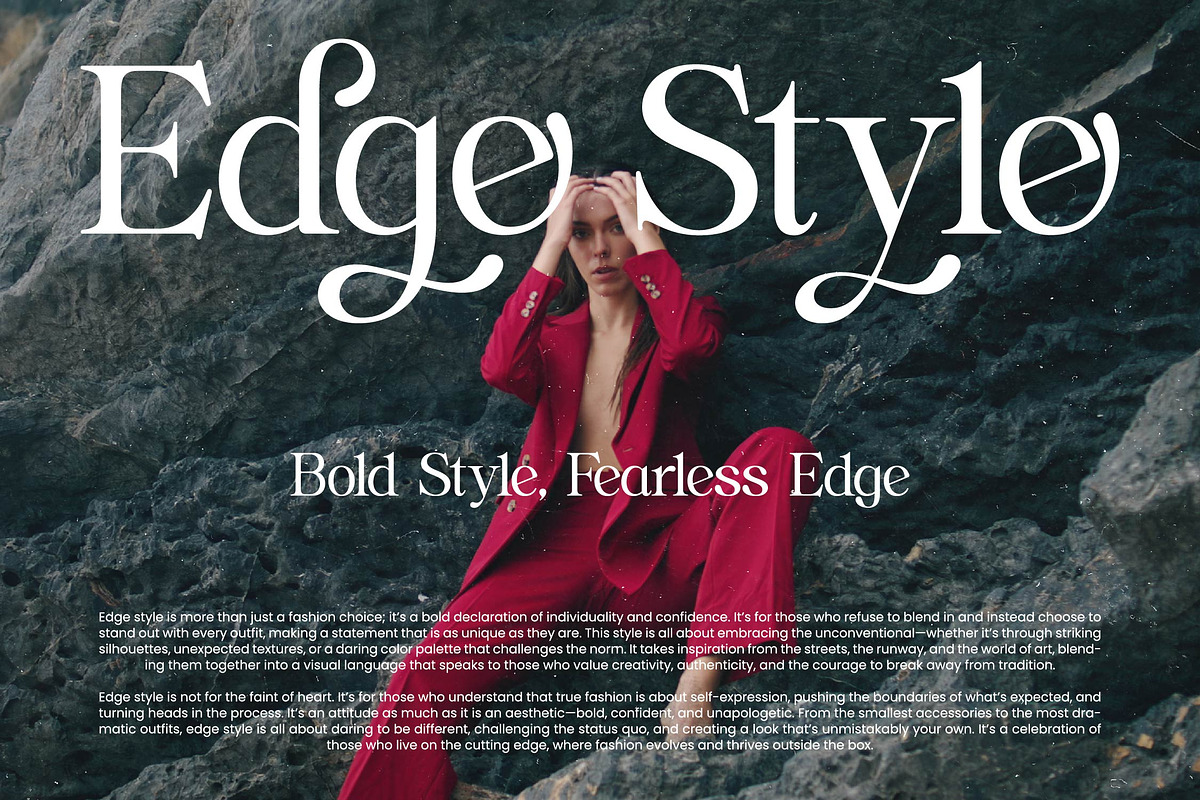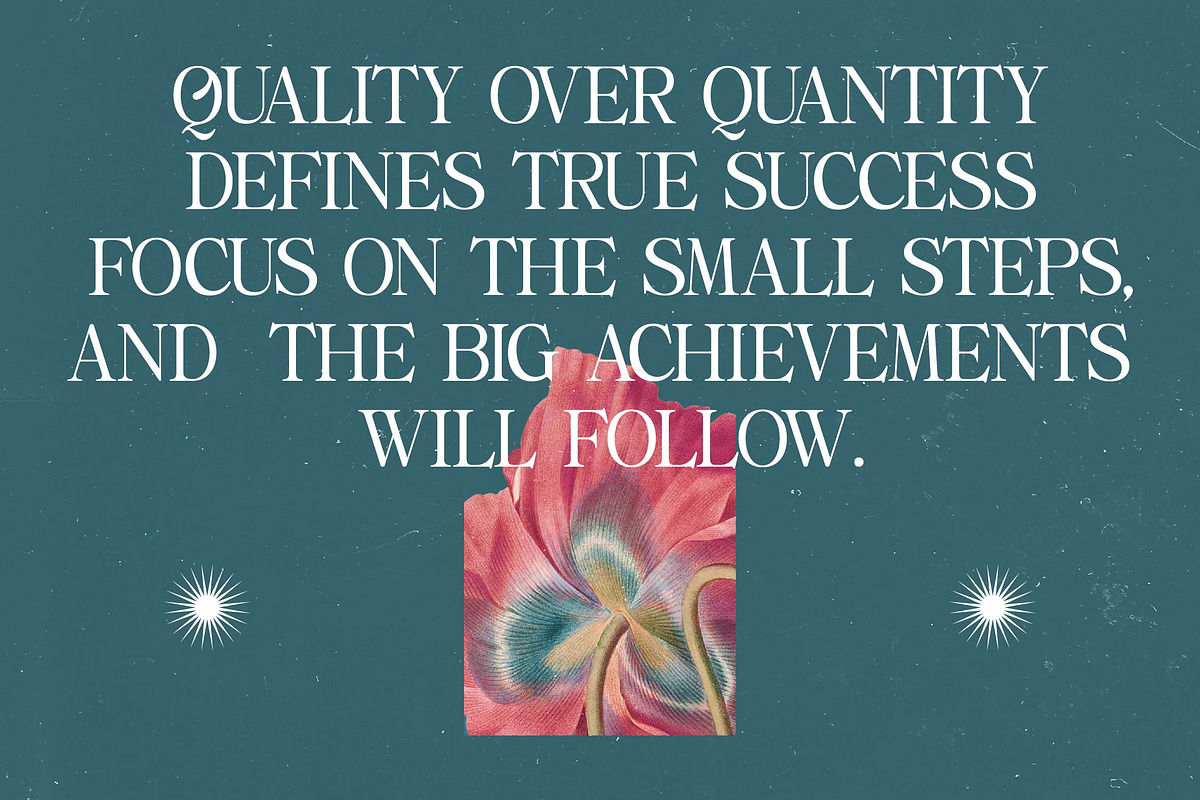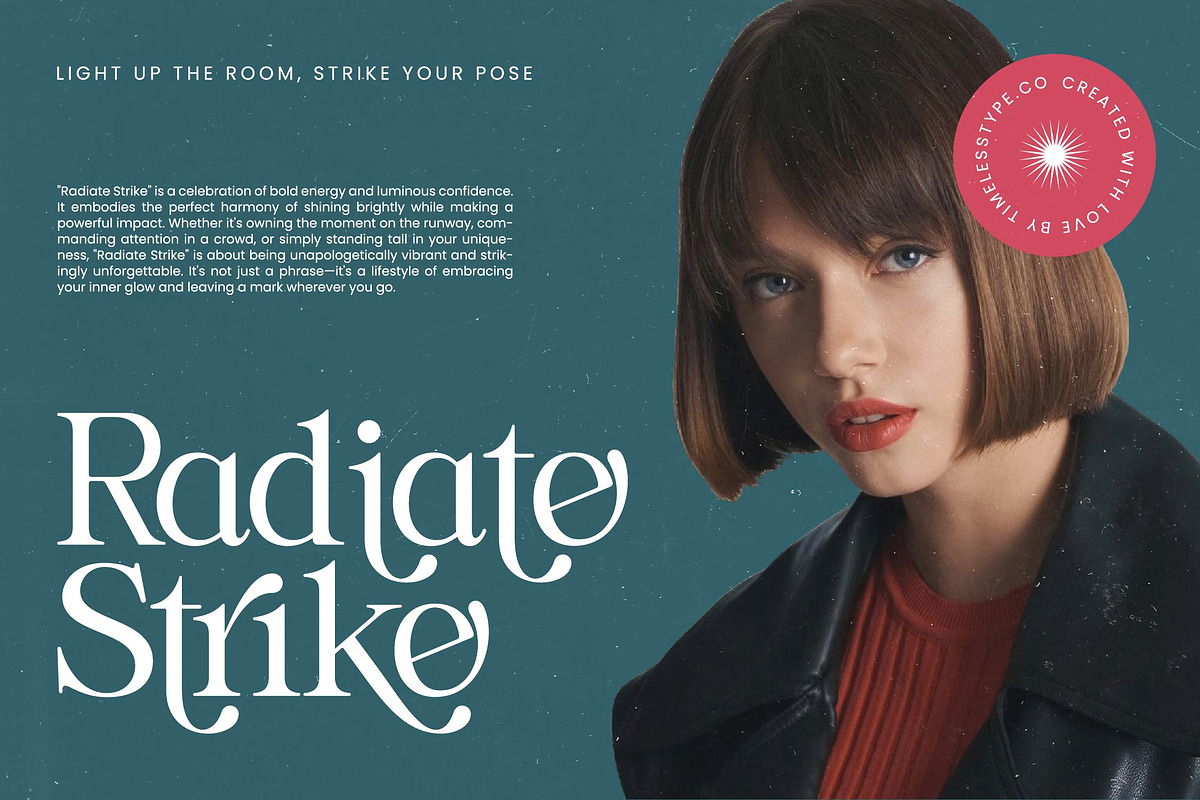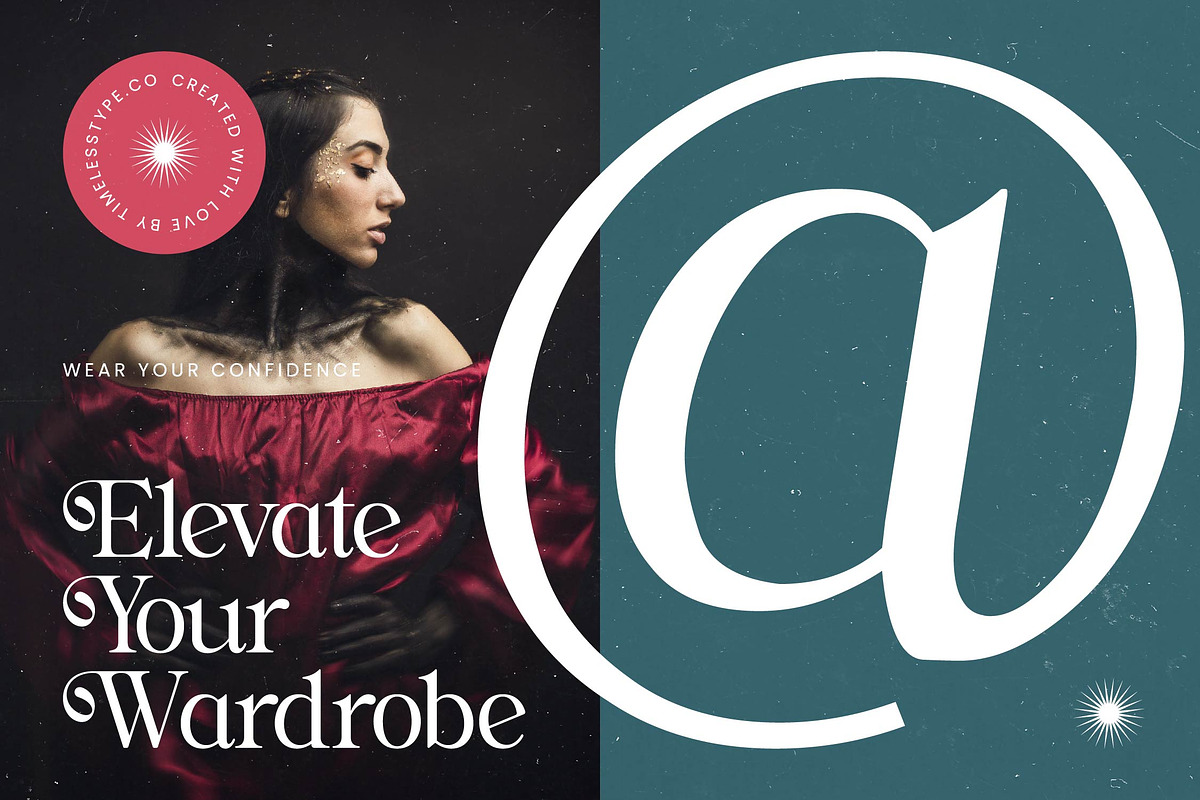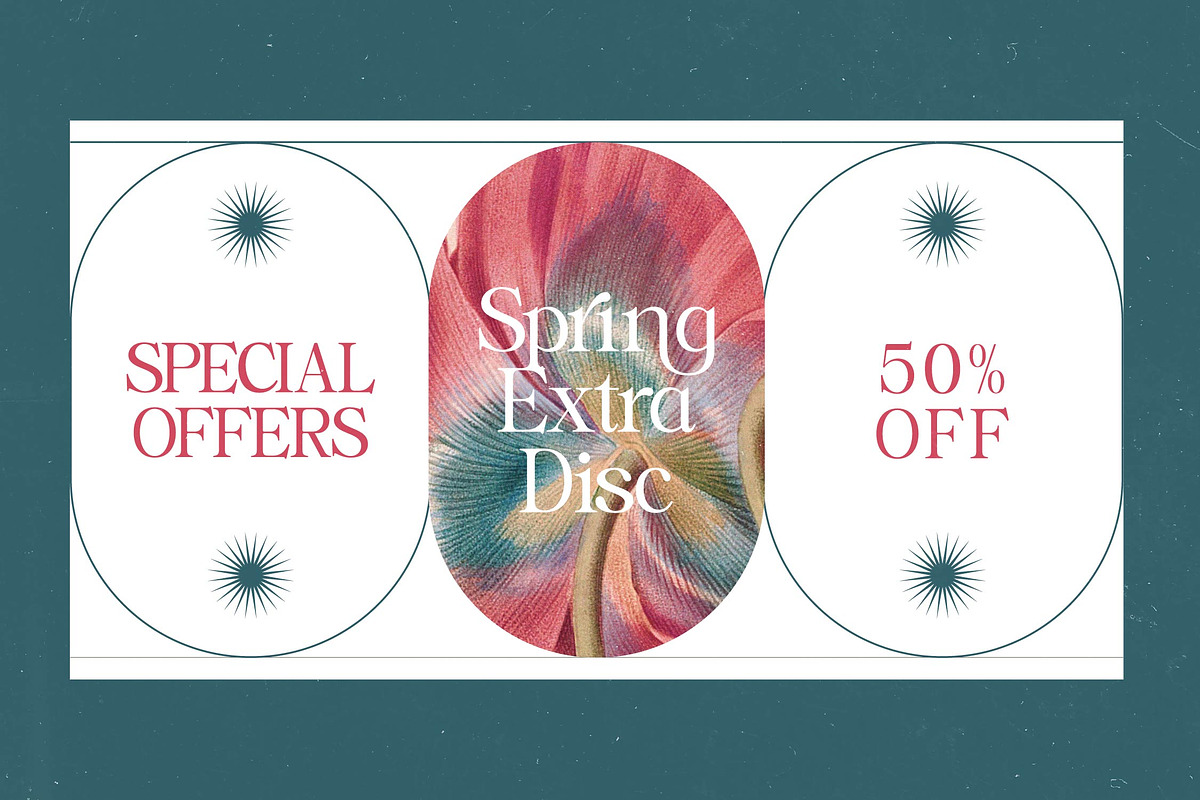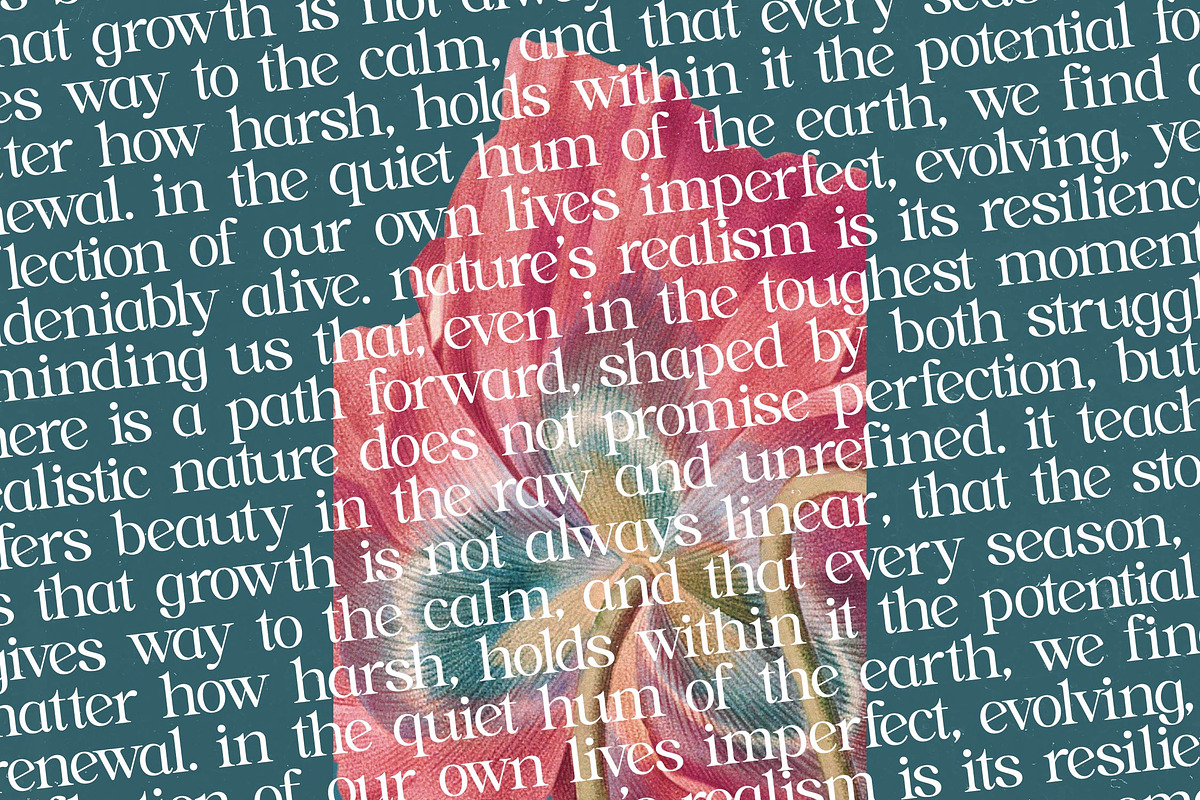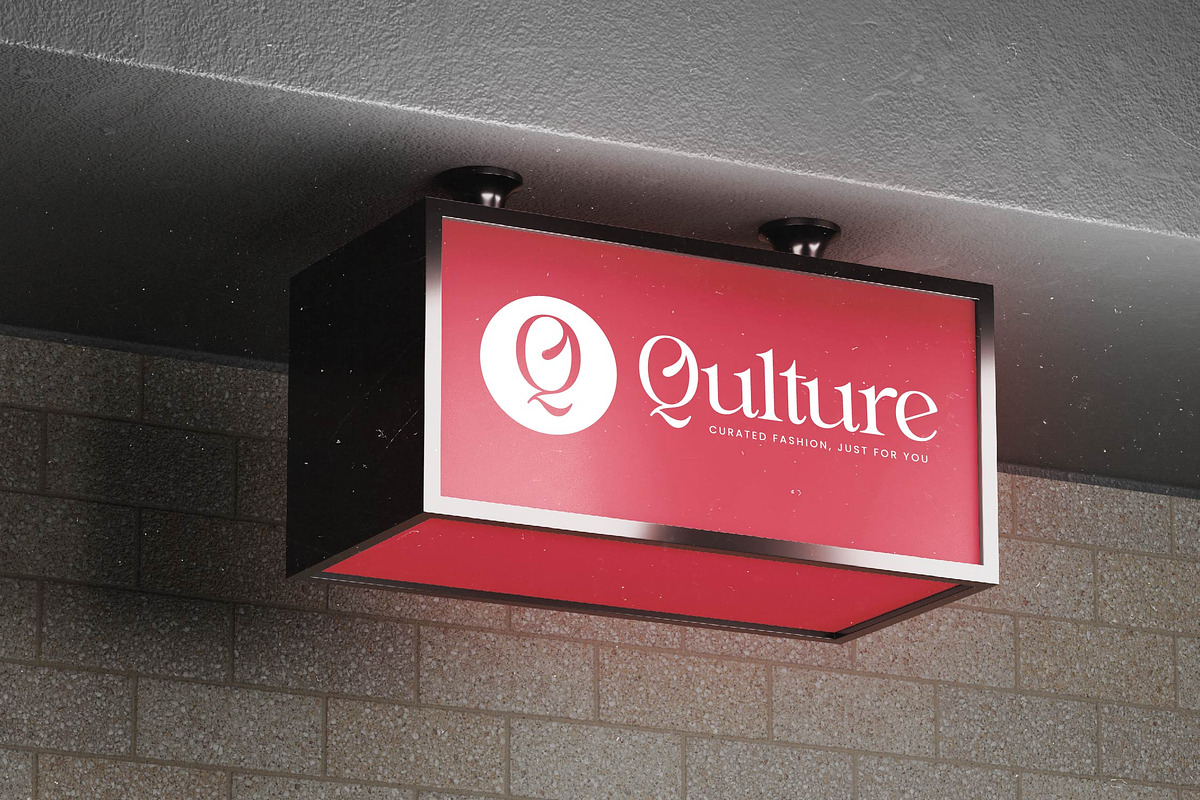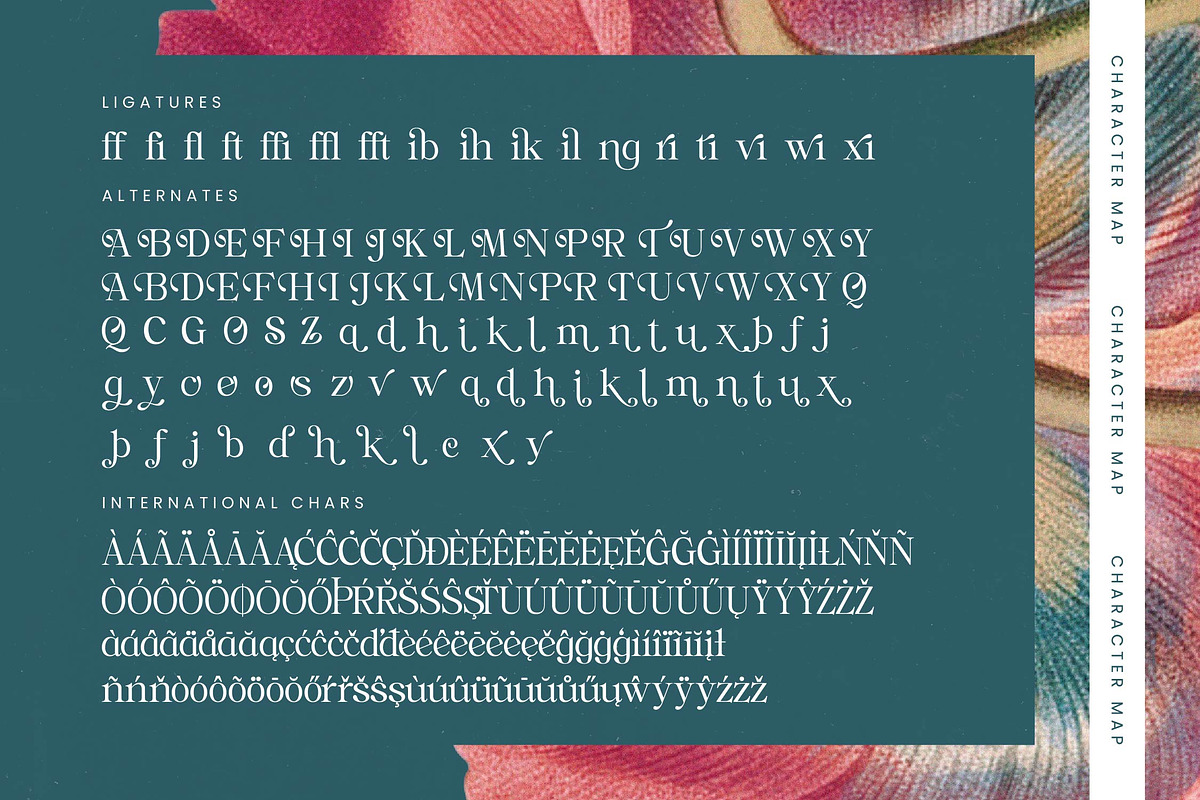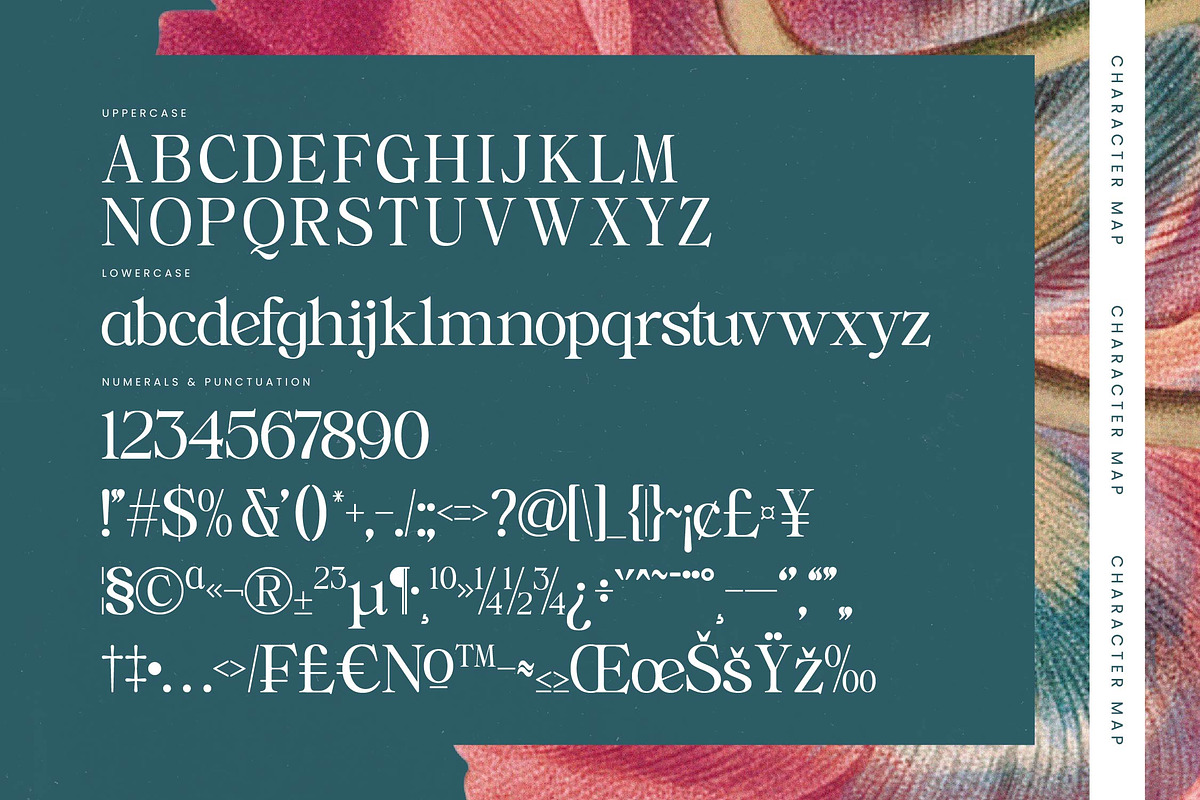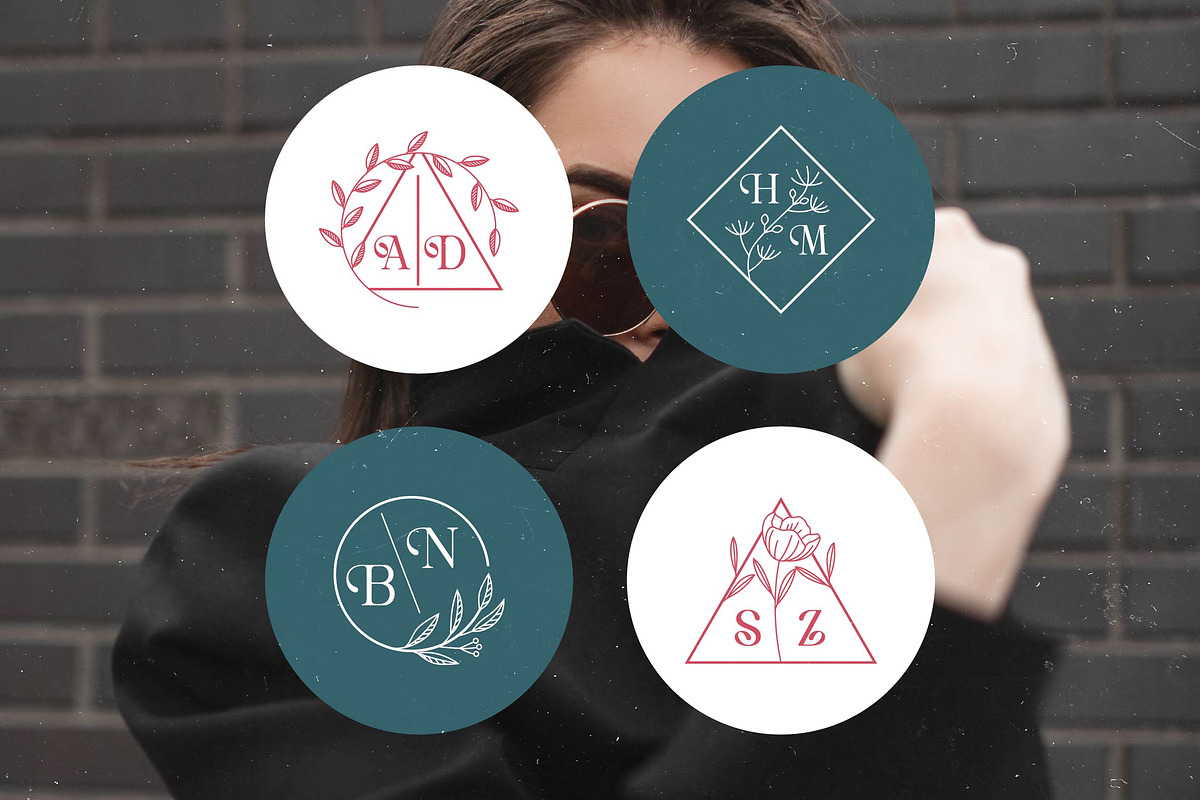
Realistic Nature Bold Serif
Embrace the essence of timeless beauty with Realistic, a typeface that captures the delicate balance between natural fluidity and structured elegance. This font transforms every word into a visual masterpiece, inviting a sense of sophisticated wonder into your creative canvas.
Drawing deep inspiration from the intricate patterns found in the botanical world, this font mimics the organic curves of petals and the sturdy grace of nature. The design reflects a vintage-to-modern transition where the softness of nature meets the precision of high-end editorial aesthetics.
Defined by its striking modern serif display qualities, this typeface delivers unparalleled luxury typography through its high-contrast serif strokes. It is built to create a lasting branding impact, functioning as a versatile editorial font that demands attention without sacrificing legibility.
Positioned at the forefront of the modern serif trend, this collection of editorial display fonts speaks to the current demand for character-driven typography. It bridges the gap between classic craftsmanship and contemporary flair, making it an essential tool for designers seeking a unique voice in a crowded digital landscape.
Whether you are crafting a high-end logo design or developing a cohesive brand identity for branding projects, this font excels in editorial layouts and luxury packaging. Its romantic undertones make it a perfect fit for wedding invitations and high-fashion spreads.
Unlock your creative potential with an extensive library of 17 ligatures and 92 alternates that allow for custom-tailored flourishes and swashes. This set also includes comprehensive multilingual support and a vast array of international characters to ensure your message translates beautifully across global boundaries.
- Ligature 17 Alternate 92